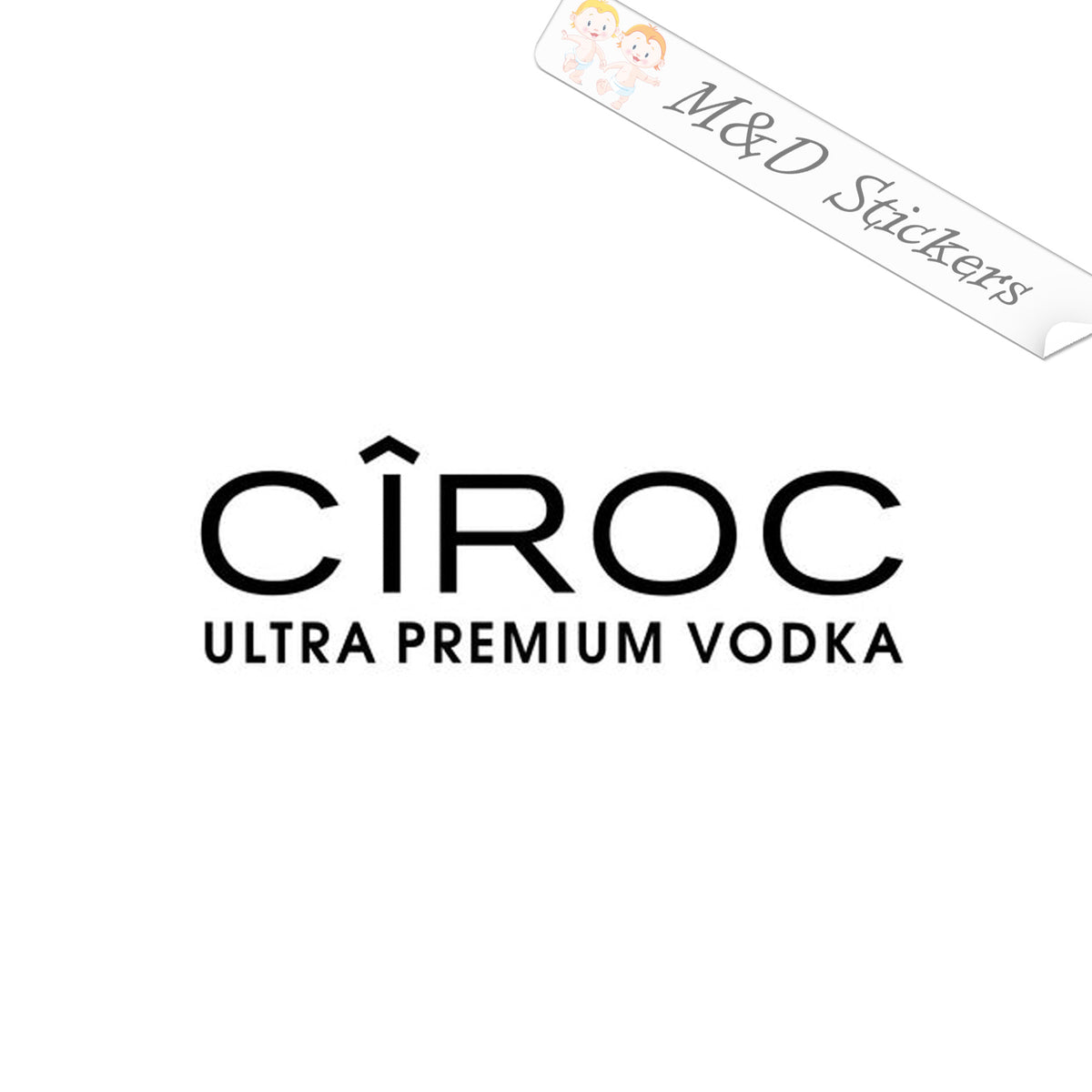
Ciroc Vodka Font . Hi, what font does ciroc use for its flavors text? With its clean lines and simple style, ciroc vodka letters is. The time is now 08:14. Keeping the brand's principles in mind, the newly designed brandmark features a bold, crisp look with slightly expanded sans serif letterforms. This sleek and modern font is perfect for creating a sense of luxury and exclusivity. Cîroc vodka logo and tagline. Looking for the font used in the ciroc logo. Pineapple, coconut, red berry, etc.
Looking for the font used in the ciroc logo. Keeping the brand's principles in mind, the newly designed brandmark features a bold, crisp look with slightly expanded sans serif letterforms. Pineapple, coconut, red berry, etc. With its clean lines and simple style, ciroc vodka letters is. Hi, what font does ciroc use for its flavors text? Cîroc vodka logo and tagline. The time is now 08:14. This sleek and modern font is perfect for creating a sense of luxury and exclusivity.
Ciroc Vodka Font This sleek and modern font is perfect for creating a sense of luxury and exclusivity. Hi, what font does ciroc use for its flavors text? Pineapple, coconut, red berry, etc. With its clean lines and simple style, ciroc vodka letters is. Cîroc vodka logo and tagline. This sleek and modern font is perfect for creating a sense of luxury and exclusivity. Looking for the font used in the ciroc logo. The time is now 08:14. Keeping the brand's principles in mind, the newly designed brandmark features a bold, crisp look with slightly expanded sans serif letterforms.
Cîroc Vodka Linea de Vodkas Mantequerías Bravo Ciroc Vodka Font Hi, what font does ciroc use for its flavors text? Looking for the font used in the ciroc logo. Pineapple, coconut, red berry, etc. With its clean lines and simple style, ciroc vodka letters is. Cîroc vodka logo and tagline. The time is now 08:14. Keeping the brand's principles in mind, the newly designed brandmark features a bold, crisp look. Ciroc Vodka Font.
Ciroc Vodka The Boogaloo Bali Ciroc Vodka Font The time is now 08:14. With its clean lines and simple style, ciroc vodka letters is. Keeping the brand's principles in mind, the newly designed brandmark features a bold, crisp look with slightly expanded sans serif letterforms. Cîroc vodka logo and tagline. Pineapple, coconut, red berry, etc. Looking for the font used in the ciroc logo. This sleek and modern. Ciroc Vodka Font.
Ciroc Pineapple Ciroc Vodka Font This sleek and modern font is perfect for creating a sense of luxury and exclusivity. Hi, what font does ciroc use for its flavors text? Looking for the font used in the ciroc logo. Keeping the brand's principles in mind, the newly designed brandmark features a bold, crisp look with slightly expanded sans serif letterforms. The time is now 08:14.. Ciroc Vodka Font.
Ciroc Vodka 1L Massy Stores St. Lucia Ciroc Vodka Font Looking for the font used in the ciroc logo. Pineapple, coconut, red berry, etc. Hi, what font does ciroc use for its flavors text? This sleek and modern font is perfect for creating a sense of luxury and exclusivity. The time is now 08:14. Keeping the brand's principles in mind, the newly designed brandmark features a bold, crisp look with. Ciroc Vodka Font.
Ciroc Vodka 1.75L Format Ciroc Vodka Font Looking for the font used in the ciroc logo. Cîroc vodka logo and tagline. Hi, what font does ciroc use for its flavors text? The time is now 08:14. Keeping the brand's principles in mind, the newly designed brandmark features a bold, crisp look with slightly expanded sans serif letterforms. With its clean lines and simple style, ciroc vodka letters. Ciroc Vodka Font.
Buy Ciroc Vodka 750mL Online Ciroc Vodka Font Pineapple, coconut, red berry, etc. With its clean lines and simple style, ciroc vodka letters is. Cîroc vodka logo and tagline. Looking for the font used in the ciroc logo. Keeping the brand's principles in mind, the newly designed brandmark features a bold, crisp look with slightly expanded sans serif letterforms. The time is now 08:14. This sleek and modern. Ciroc Vodka Font.
Ciroc Vodka, 750mL Booze One™ Wines Beers Spirits Ciroc Vodka Font Looking for the font used in the ciroc logo. This sleek and modern font is perfect for creating a sense of luxury and exclusivity. With its clean lines and simple style, ciroc vodka letters is. The time is now 08:14. Cîroc vodka logo and tagline. Pineapple, coconut, red berry, etc. Hi, what font does ciroc use for its flavors text?. Ciroc Vodka Font.
A Taste of Luxury Cîroc Vodka Ciroc Vodka Font Hi, what font does ciroc use for its flavors text? Keeping the brand's principles in mind, the newly designed brandmark features a bold, crisp look with slightly expanded sans serif letterforms. With its clean lines and simple style, ciroc vodka letters is. The time is now 08:14. Cîroc vodka logo and tagline. Looking for the font used in the ciroc. Ciroc Vodka Font.